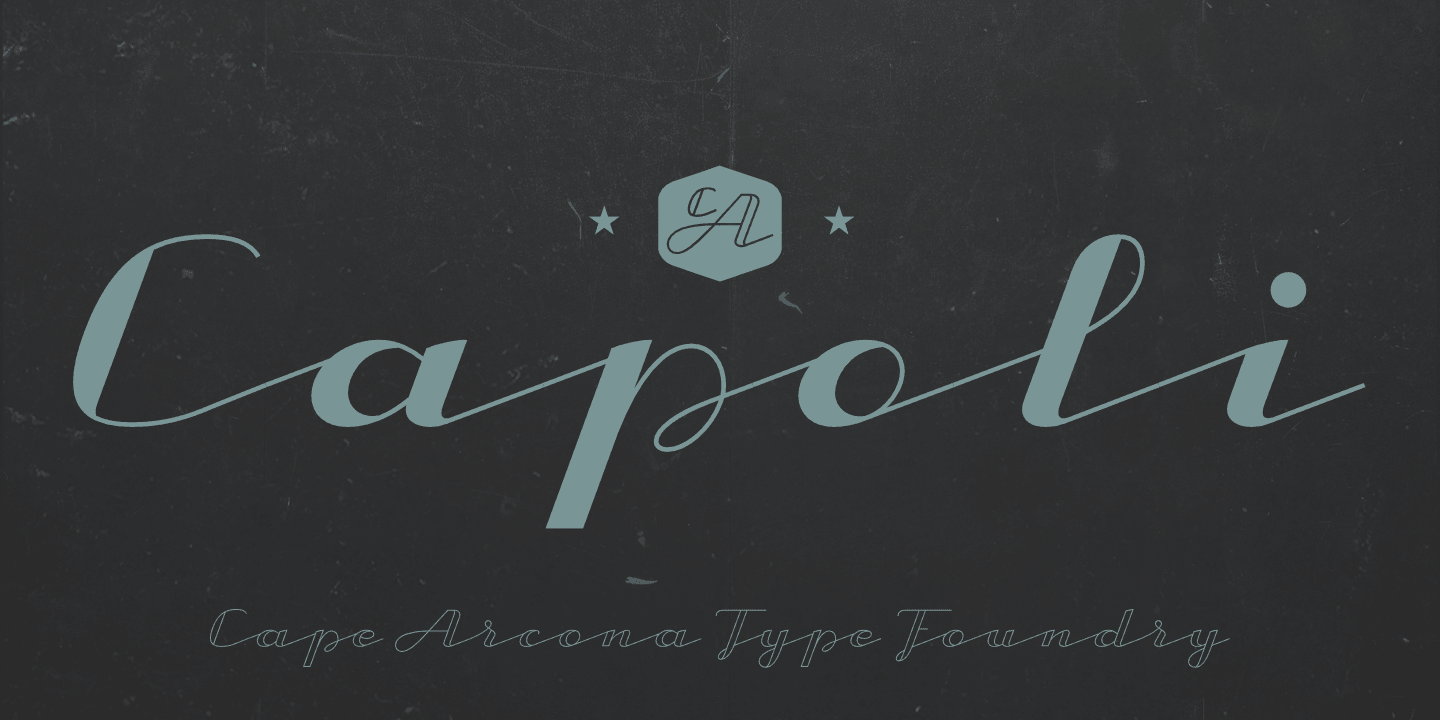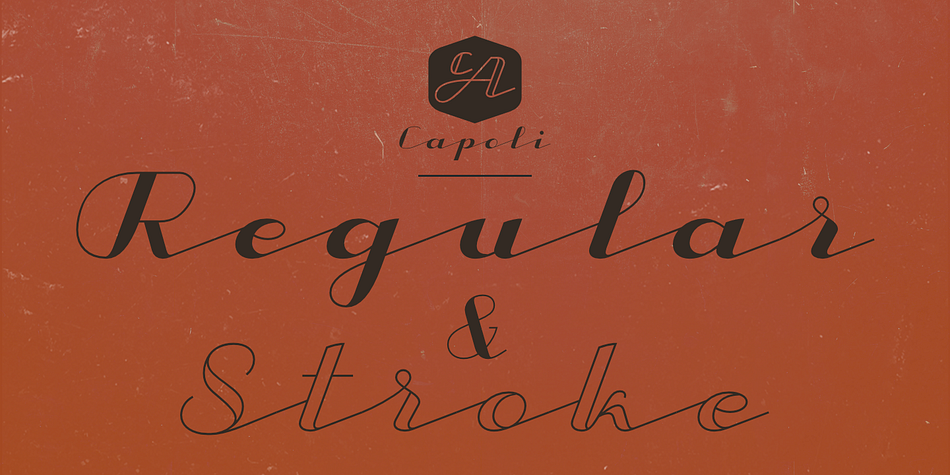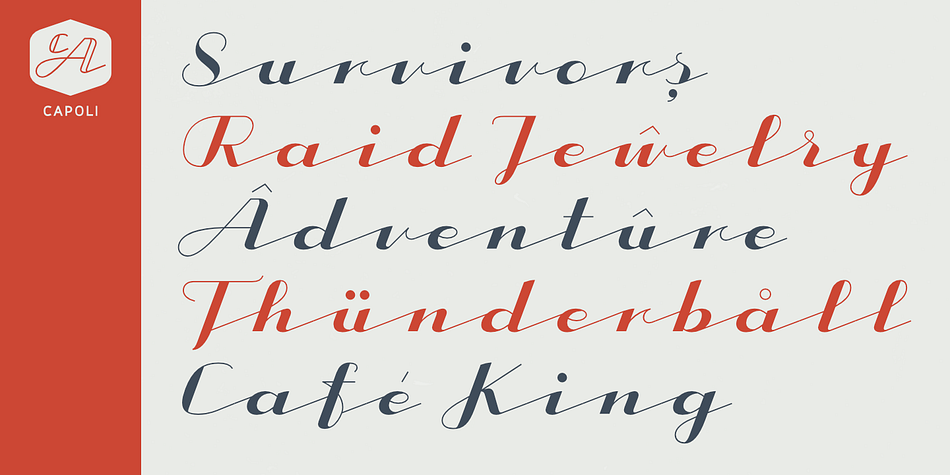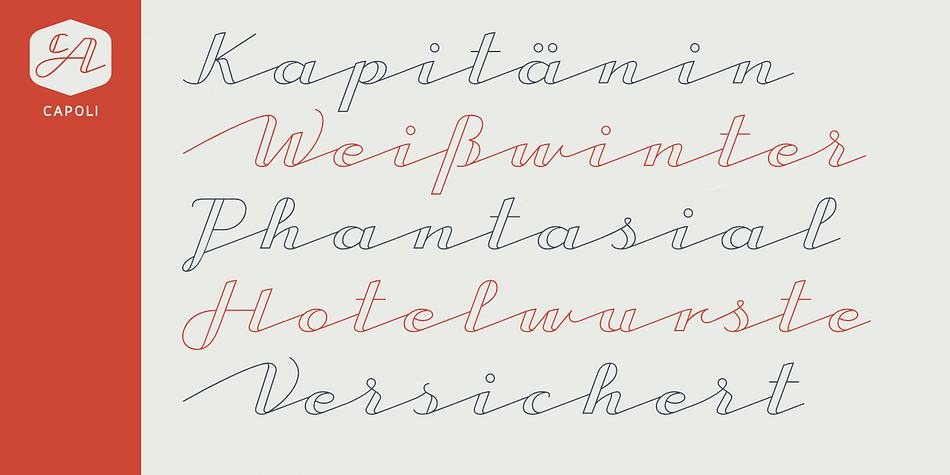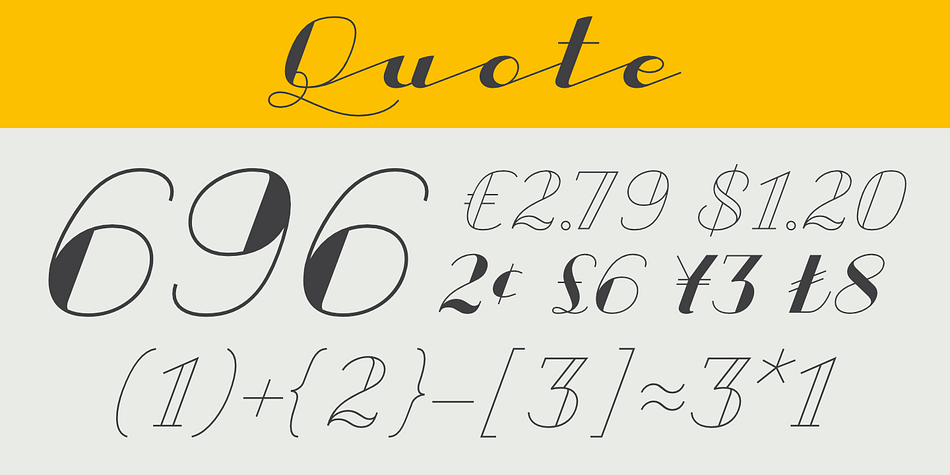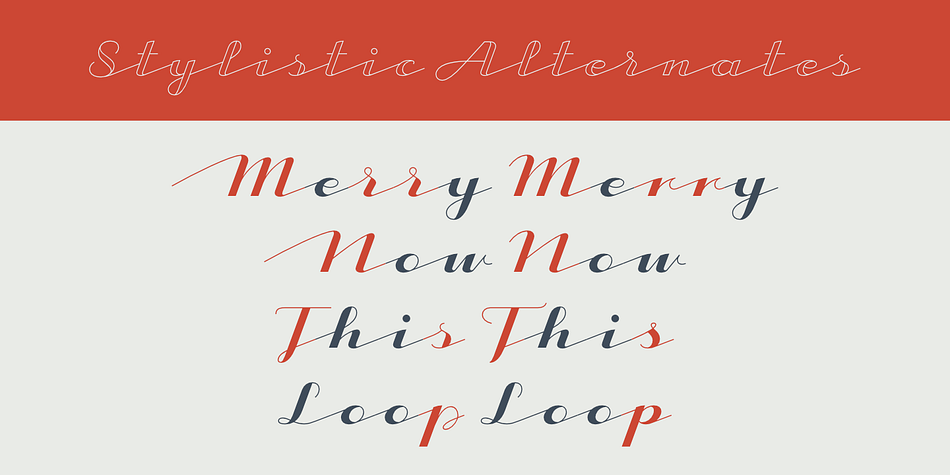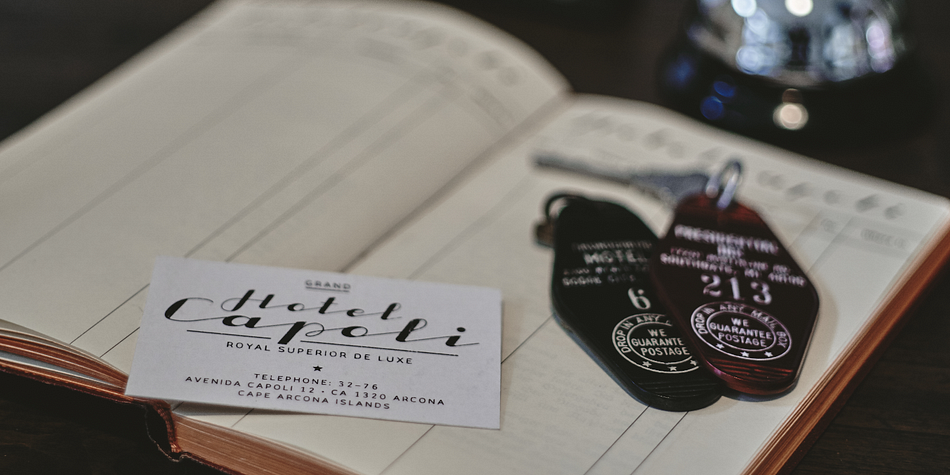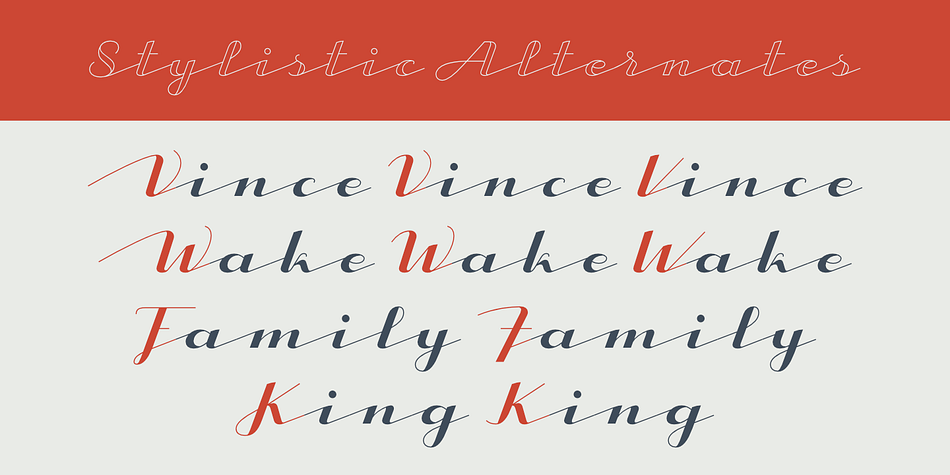
Designed by Thomas Schostok, CA Capoli is a script font family. This typeface has two styles and was published by Cape Arcona Type Foundry.
CA Capoli is a fine script typeface with a vintage touch. Perfect for illustrative titles or logotypes. It comes in two styles, Regular and Stroke.
The inspiration came during our trip to Italy, where we took a short rest in a bar during a hot day. We discovered a simple ceramic ashtray on the table. The word “Nido” was inscribed in a typeface that looked like it dated back to the 1950s. We made some investigations about the word, its meaning and origin but it still remains a big mystery. Was it the name of a hotel or a restaurant or some vintage Italian cigarettes? We don’t know.
We were so amazed about the design of the logo that we decided to create a typeface out of it. A sophisticated endeavour because we just had four letters. How could the rest of the letters – if it ever existed – have looked like? Our hypothesis is CA Capoli. A typeface with a full Central European character set and some nice alternative letters to chose from.
When we thought about “Nido” and its possible derivation of hotel business, we felt like creating a small side project for this typeface, a brand for a fictional hotel called Hotel Capoli with business cards, letterheads, a reception book, key fobs and embroidered patches for the service dress of the hotel service stuff. The Hotel Capoli is located at the wonderful beach of Cape Arcona on the fictional country of Arcona Islands where our type foundry is located.